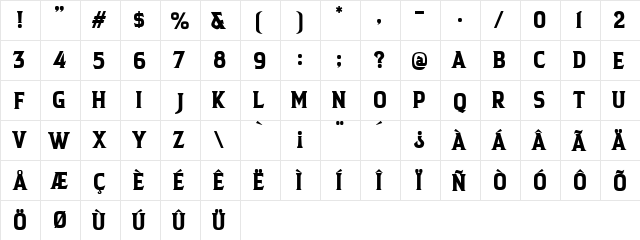
BACKCOUNTRY Regular
| Designer | HENRIavecunK |
Design Context for BACKCOUNTRY Typeface
BACKCOUNTRY offers clean, dependable letterforms without strong stylistic allegiance, making it a practical choice for designers who need flexibility.